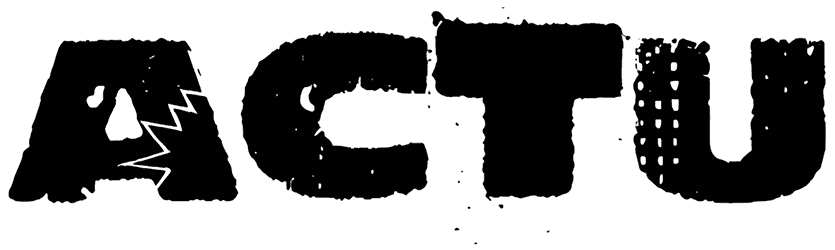
Actu Font
In order to take another step in designing high-end graphic content, you should never overlook an all-caps eroded font such as Actu that comes with a fade and spooky style.
This masterpiece carries a sense of eerie, mysterious, classic, or smudgy, so you can easily impress the audience and persuade them to follow your editorial projects. In the end, we would like to advise you to pick up this destroyed font for video game brochures, magazines, logos, flyers, or stationery.